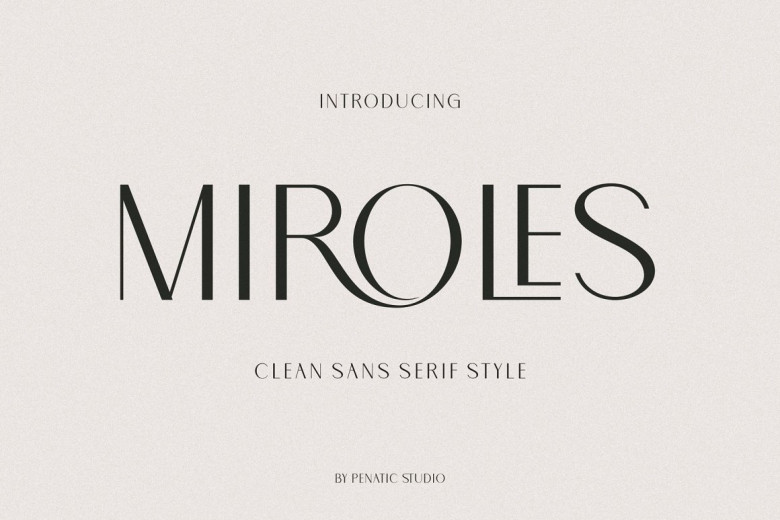
Miroles Font
MIROLES Sans Serif Font is an elegant, beautiful, and neat Sans Serif font with multiple ligatures, alternate letters, and plenty of ligatures that is easy to use and suitable for stringing alphabets together. You will be able to improve your work thanks to its beautiful appearance. It is suitable for any work related to stringing alphabets together.
Miroles Sans Serif Font